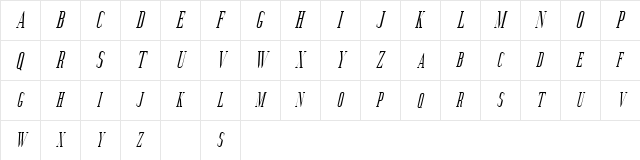
Aguero Serif Free Italic
Design Context for Aguero Serif Free Typeface
Aguero Serif Free carries the refined structure of traditional serif typography, with bracketed terminals and considered proportions that communicate credibility and craft. The dynamic lean of this cut emphasises speed and emphasis in any layout.
Pro Tip: Set Aguero Serif Free with slightly loose tracking in headlines to let each letterform's detail read clearly at display sizes.